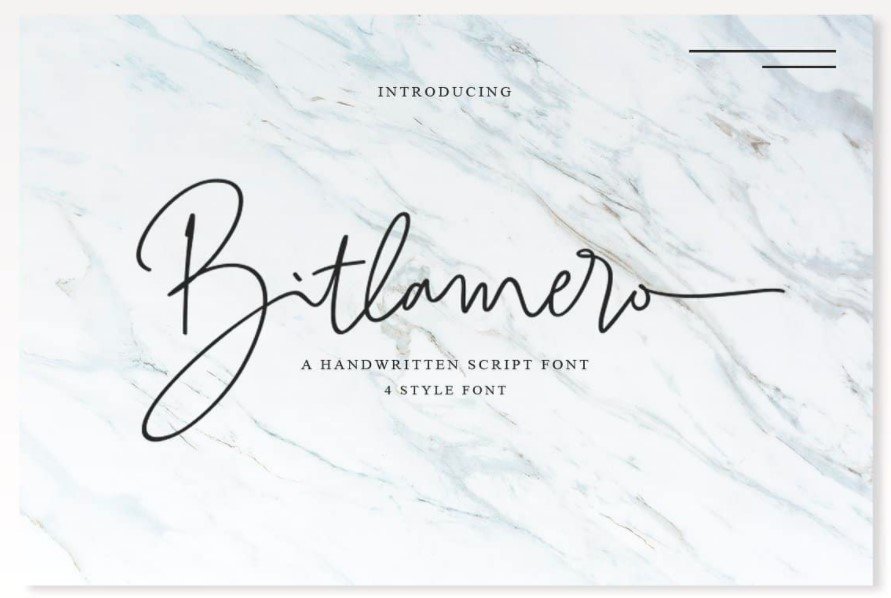
Introducing the Bitlamero Signature Font, a captivating and display-ready handwritten scripted typeface designed and developed by Ijemrokart. This font boasts 389 ligatures, stylistic features, dynamic characters, and flawless styles.
You can utilize this great for making your ongoing and future projects easily with this font that can be used with sunrise international font and we surely guaranteed you that you will get perfect results and satisfied with this font awesome Bitlamero Font.
Here we provide an image which includes the characters and letters of this beautiful, you can perceives it by viewing on the image and get an idea how delightful it is.
The font has a great signature typeface which is usable in creative designs like postcards, flyers, posters, wedding cards and other related projects can be made with this font and can be utilized efficiently by using this font as pairing with the combination of bitter font.
Also, there are so many other ways to use this font and getting great ratings by creating eye-catchy and attractive designing posts with this top-rating typeface.